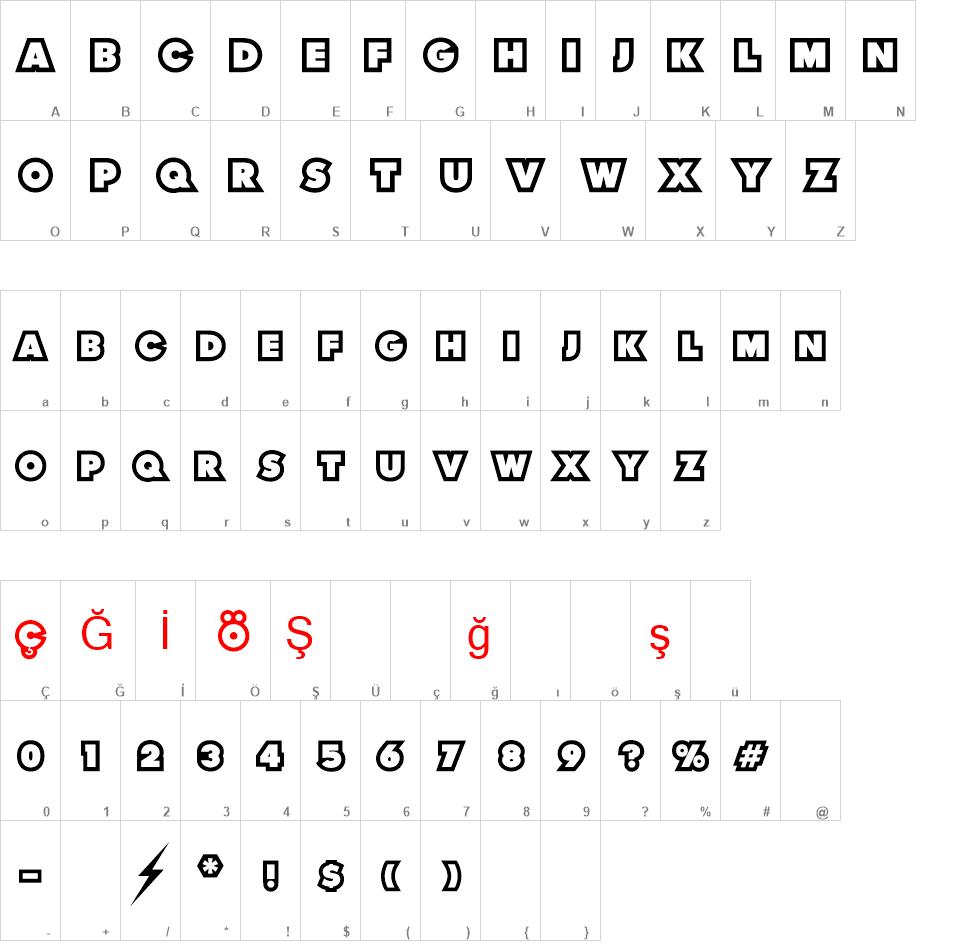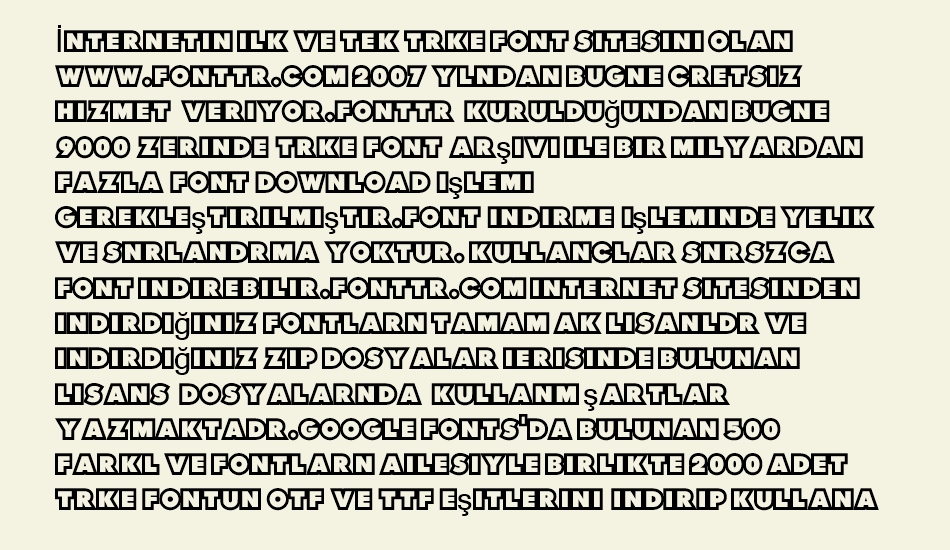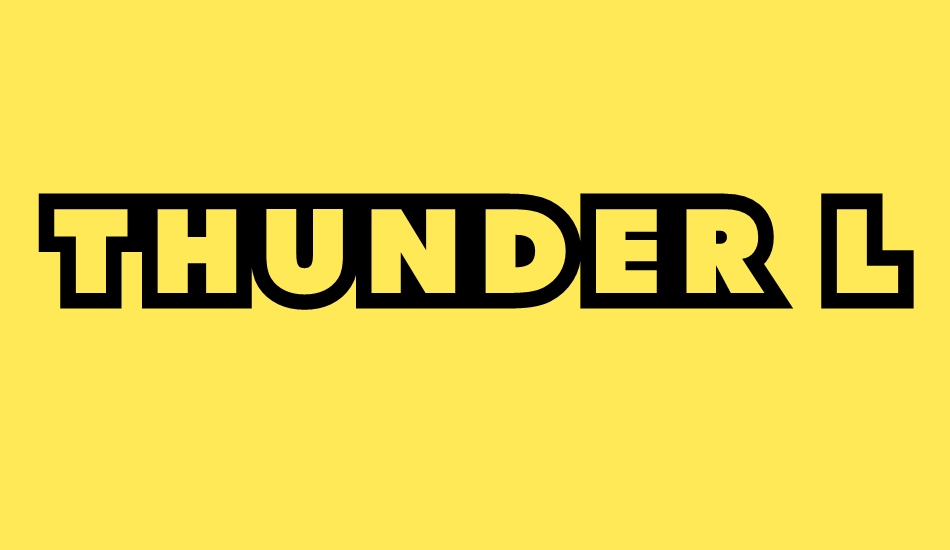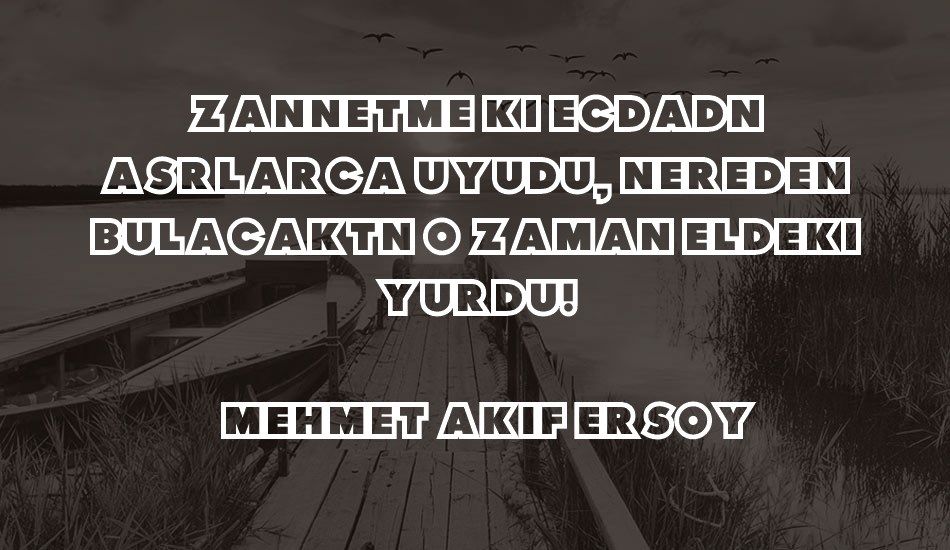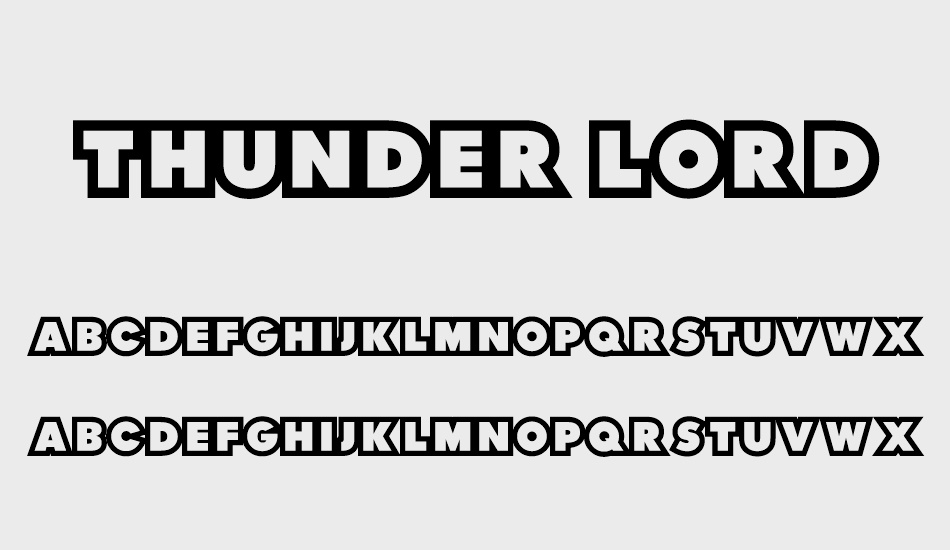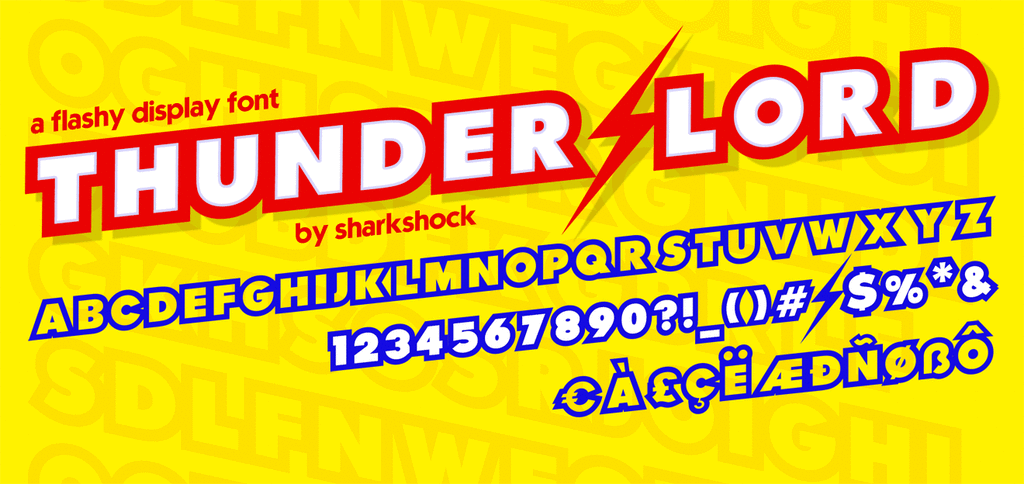
Thunder Lord font
Thunder Lord
Hi there font fans! Tired of your everyday bold type? Need something with a little more punch? Need a hero? Enter Thunder Lord. This outlined variant of Raiderfont is a faithful translation with
a few tweaks and changes. This display font features only uppercase letters and limited punctuation. The lightning bolt can be keyed by pressing the slash button. There are European accents and